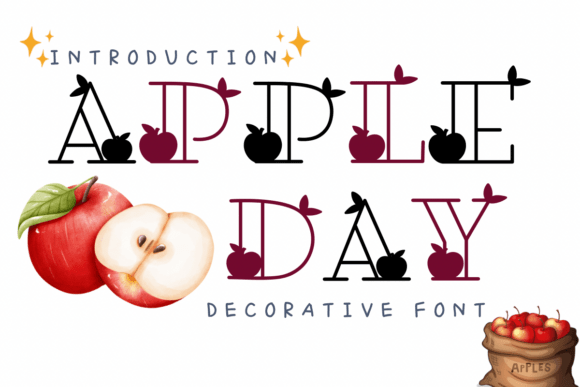
The Apple of My Eye: Discovering the Delightful Apple Day Font
I’ll never forget the time I was working on a fall-themed project for a client, and I just couldn’t find the perfect font to capture the essence of the season. The client wanted something cheerful, playful, and utterly charming. I scoured the internet, tried out dozens of fonts, but nothing seemed quite right. That was until I stumbled upon the Apple Day font. It was love at first sight! ✨
Each letter is adorned with a stylized apple motif, making it perfect for seasonal projects, harvest festivals, or children’s educational materials. Its clean yet playful serif structure allows for easy readability while keeping the visual interest high. In this article, I’ll share my experience with the Apple Day font, its features, and how to make the most of it in your designs.
- ✨ Unique and thematic design that’s perfect for fall and harvest-themed projects
- ✅ Easy readability due to its clean serif structure
- 🎉 Playful and cheerful vibe that’s sure to delight
- 📚 Versatile and suitable for a wide range of design projects, from children’s materials to seasonal crafts
While the Apple Day font is delightful, there are a few things to keep in mind: 🤔
- ⚠️ Limited use outside of fall or harvest-themed projects, as its design might not be suitable for other contexts
- ⚠️ Might not work well in small sizes or at low resolutions due to its intricate design
The Designer Inspiration Behind Apple Day Font
The Apple Day font was designed with the intention of capturing the essence of fall and the harvest season. The designer, inspired by the simple joys of picking apples on a crisp autumn day, aimed to create a font that’s both playful and thematic. The result is a font that’s perfect for a wide range of design projects, from seasonal crafts to children’s educational materials.
| Font Name | Apple Day Font |
| Author | Natchuta |
Q: What is the Apple Day font best suited for?
A: The Apple Day font is ideal for fall-themed projects, harvest festivals, children’s educational materials, and seasonal crafts.